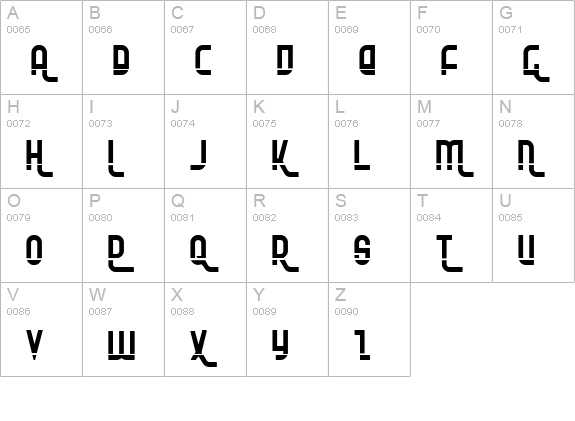
Introducing the mesmerizing Ro'Ki'Kier Laser font, a futuristic and edgy typeface that exudes a sense of energy and sophistication. This cutting-edge font is perfect for creating eye-catching designs that demand attention and make a bold statement. With its sharp lines and sleek design, Ro'Ki'Kier Laser font is ideal for projects that require a modern and dynamic look. But here's the best part - Ro'Ki'Kier Laser font is available for free download at FontsMarket.com! Yes, that's right, you can get your hands on this stunning font without spending a dime. Whether you're working on a branding project, poster design, or any other creative endeavor, Ro'Ki'Kier Laser font will elevate your work to the next level. Don't miss out on this incredible opportunity to add a touch of futuristic flair to your designs with this amazing free font. Download Ro'Ki'Kier Laser font today and let your creativity soar!